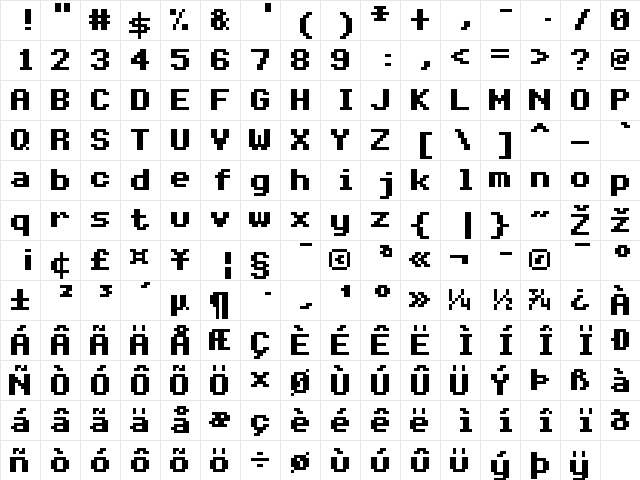
FFF Mono01 Bold Extended Regular
| Foundry | Fonts For Flash |
| Designer | Fonts For Flash |
Design Context for FFF Mono01 Bold Extended Typeface
FFF Mono01 Bold Extended brings the precise, column-aligned rhythm of monospaced typography to designs that value technical clarity and systematic order. The heavy weight commands attention and anchors typographic hierarchies.
A natural fit for code editors, technical documentation, developer-focused branding, and terminal-inspired UI.